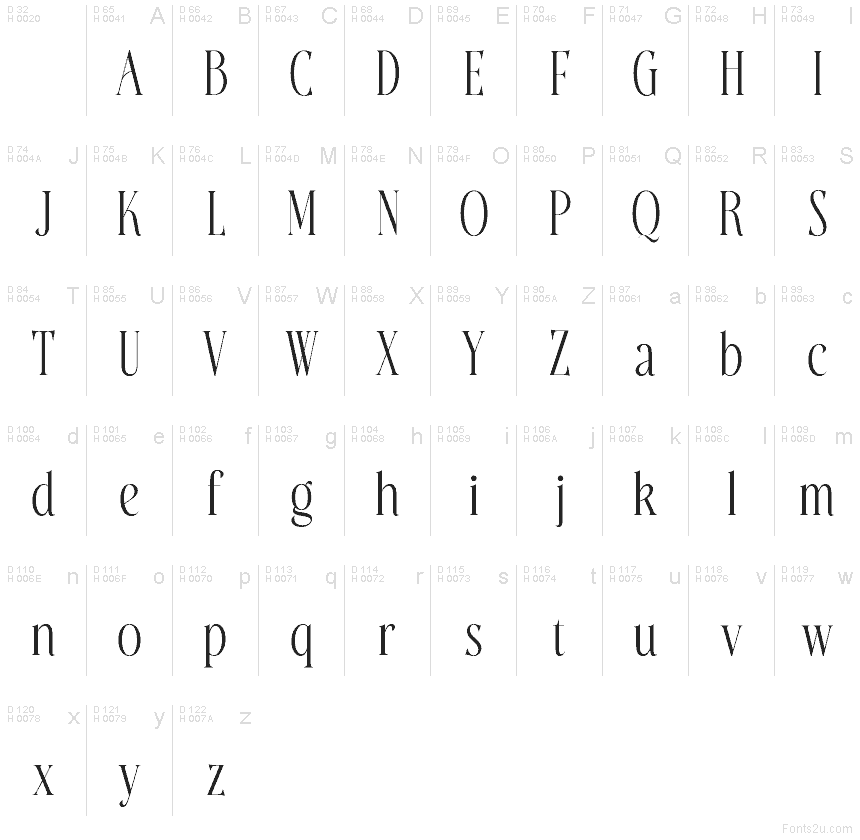
CS Courtesy Regular Demo
CS Courtesy font by Craft Supply Co is a sophisticated serif typeface with a condensed design and elegant, refined aesthetics. Overall, its appearance emanates a modern twist on traditional fonts elegantly contemporized with subtle curves. Enjoy the modern aesthetic of this font to maintain your text’s refined nature.